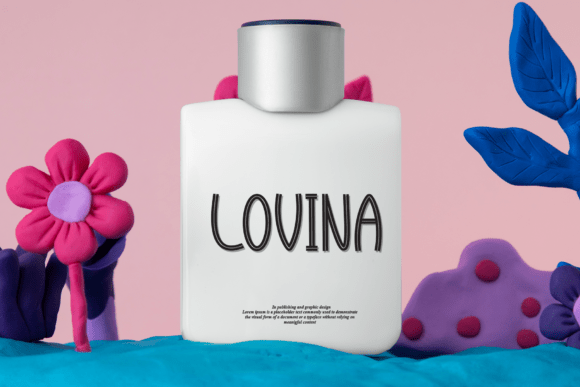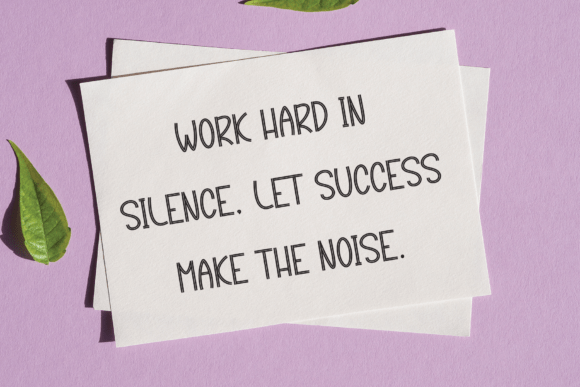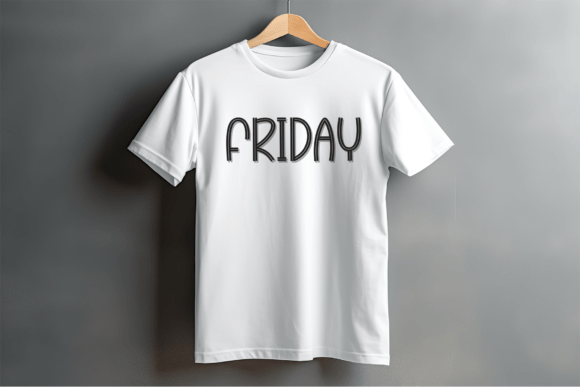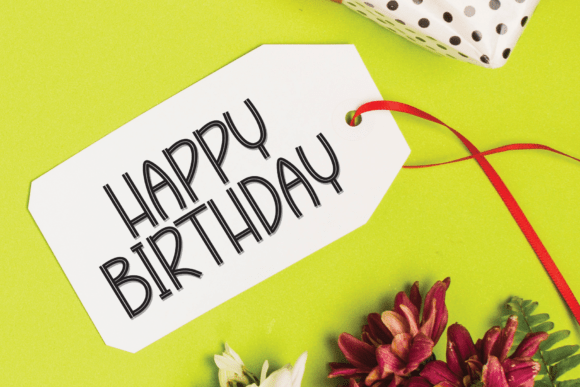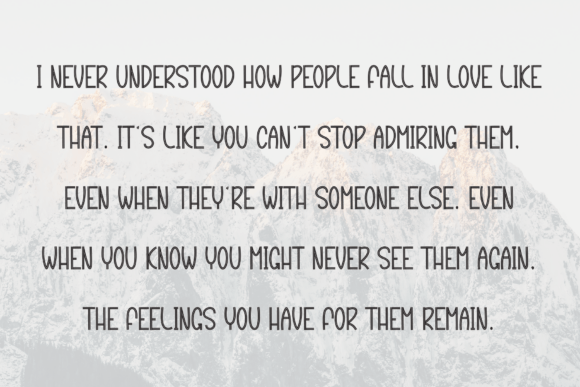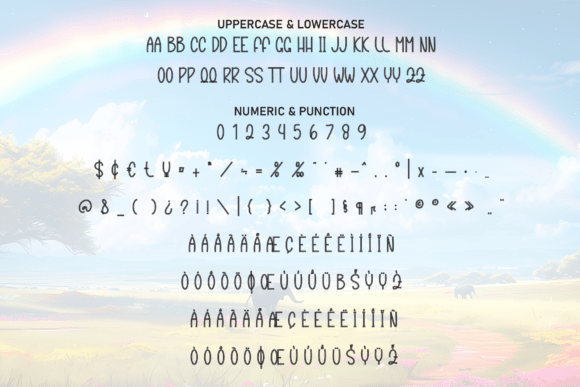
Introduction to Holiday Rainbow Font
Embrace the captivating allure of a handcrafted, display font that radiates welcoming vibes.
Immersed in an adorable, spirited style, this font introduces an element of lighthearted pleasure to any design Craft the warmest of wedding invites, the most affectionate cards, and any design requiring a sprinkling of joy with this font.
Key Features of Holiday Rainbow Font